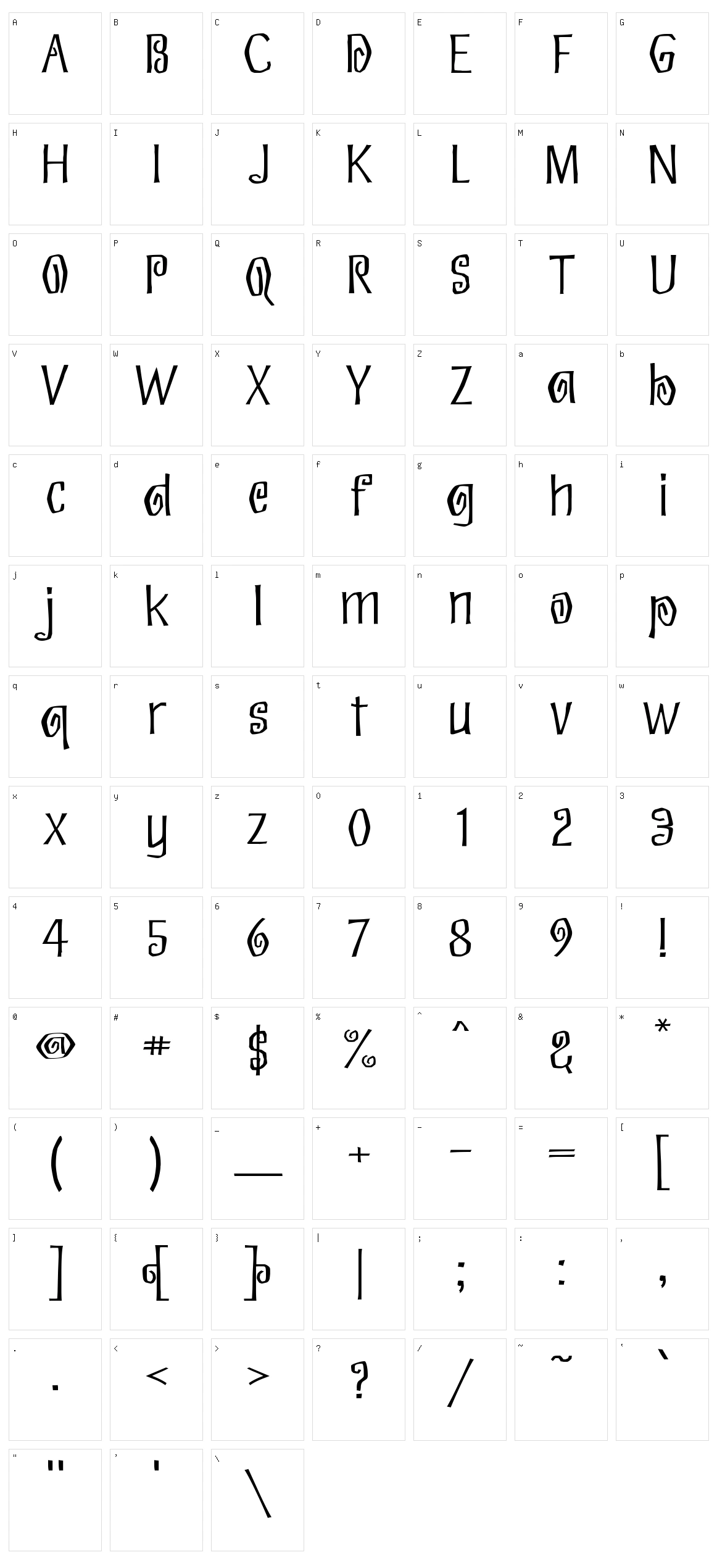
The free font Eskargot is carefully designed by Apostrophic Labs, showcasing a thoughtful balance of creativity and usability and falls under the Script font style. When you download the ZIP file, it contains only 26.54 KB of font files, making it lightweight and quick to download. Please review the license details below to understand permitted usage and distribution rights. If license information is not available, we recommend using this font for personal projects only or contacting the author directly for commercial usage permissions.